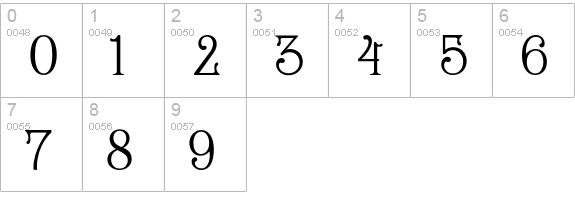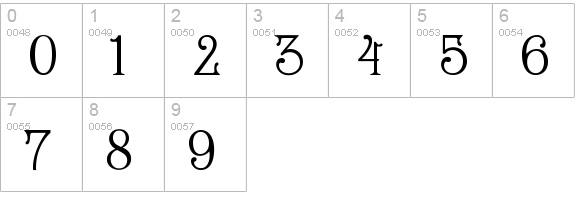
Wallington SC Font Details
Wallington SC font is a stunning and elegant serif typeface that exudes sophistication and charm. With its delicate curves and stylish flourishes, this font is perfect for adding a touch of class to your designs. Whether you're working on invitations, logos, or branding materials, Wallington SC is sure to make a lasting impression. The best part? Wallington SC font is completely free to download at FontsMarket.com. This means you can easily access this beautiful font to enhance your projects without any cost. So why wait? Download Wallington SC font today and elevate your designs to a whole new level of elegance and style.